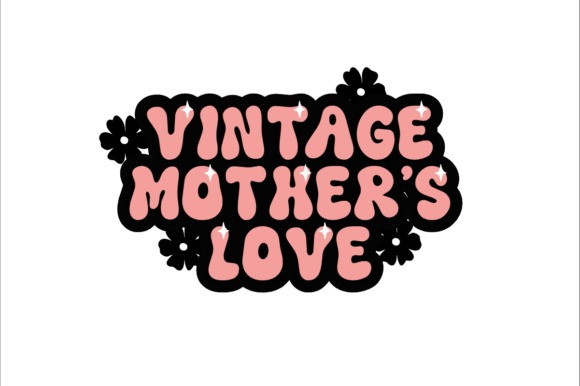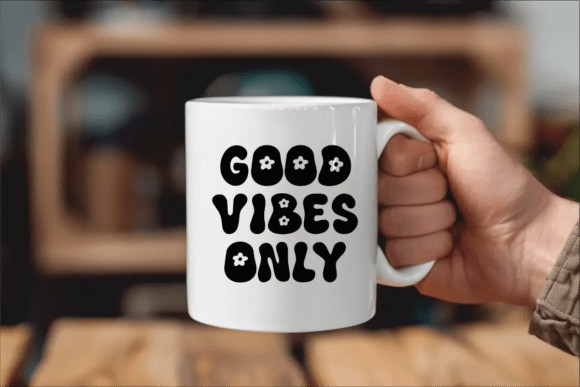
Retro Mother Font
Retro Mother Font is a charming and groovy display font that beautifully blends retro aesthetics with a touch of modern sweetness. Its rounded, slightly wavy letterforms evoke a nostalgic feel reminiscent of the 70s, while the delicate floral accents add a touch of contemporary cuteness and whimsy. This font is perfect for adding a retro yet sweet vibe to a wide range of creative projects. Imagine Retro Mother enhancing groovy stickers, charming planner designs, retro-inspired t-shirt graphics, sweet product labels, unique invitations, personalized tumblers, and a variety of other delightful crafts.
Its distinctively retro and cute style makes it exceptionally well-suited for products targeting end-users who enjoy crafting with Cricut, sublimation, and other DIY methods, adding a touch of vintage charm with a modern twist to their creations. Retro Mother’s unique character will make your designs stand out with its nostalgic yet fresh and appealing aesthetic, bringing a smile with its groovy floral touch.